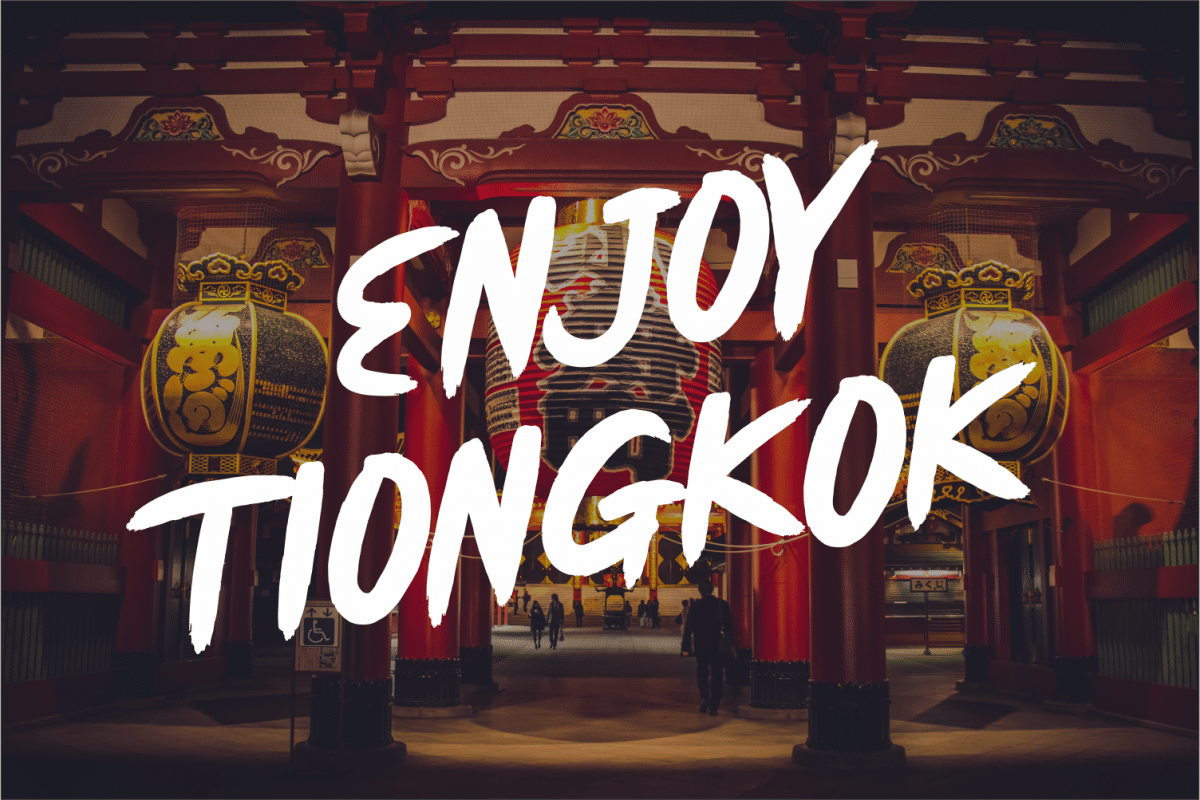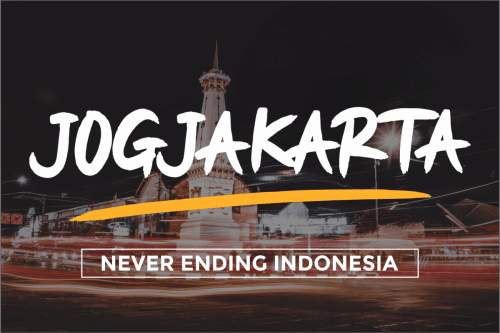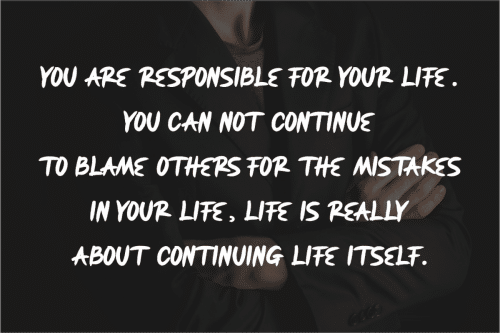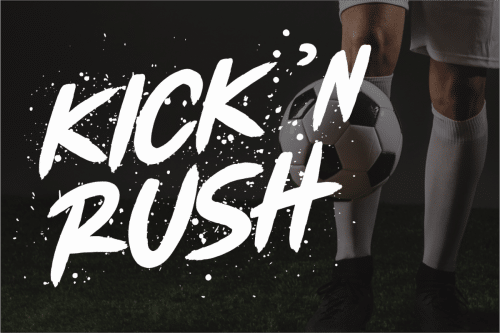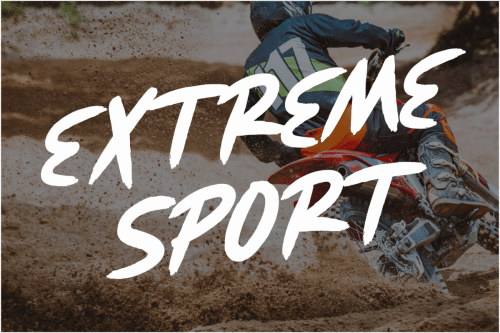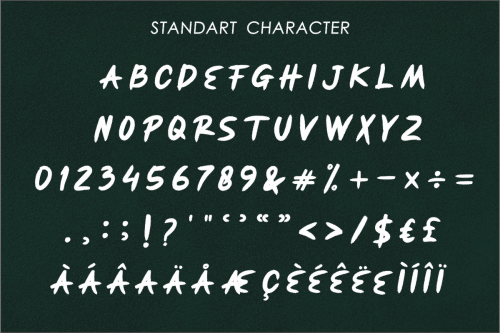
Hello guys… First Blood a natural brush font. First Blood would perfect for sports, music festival, quotes, special events or anything .
- Designer: PuriCreative